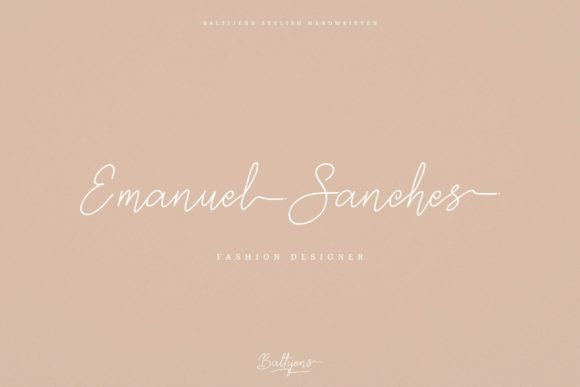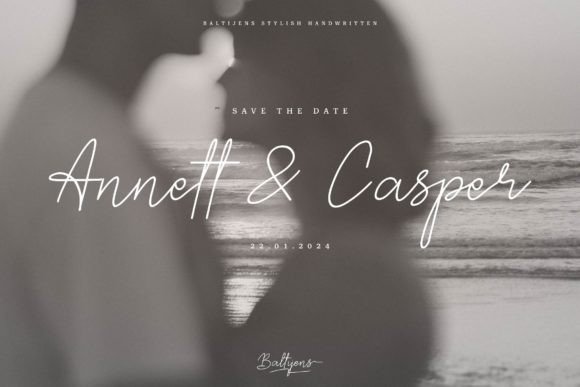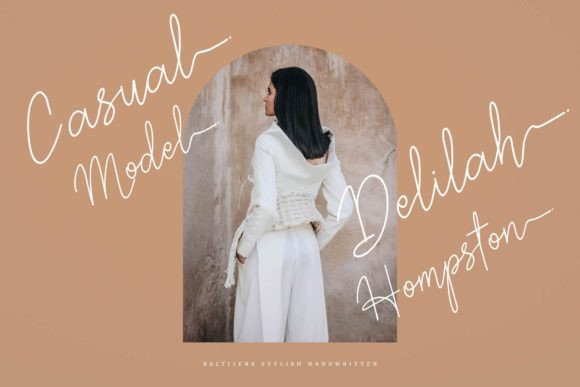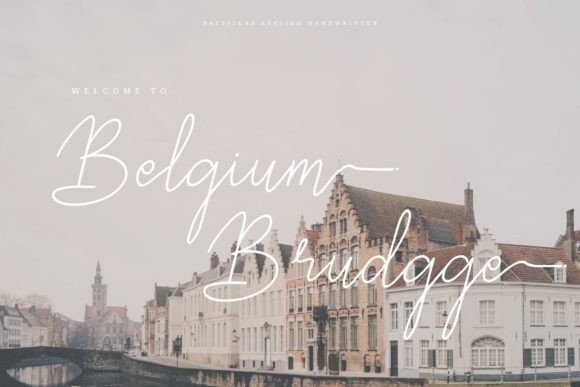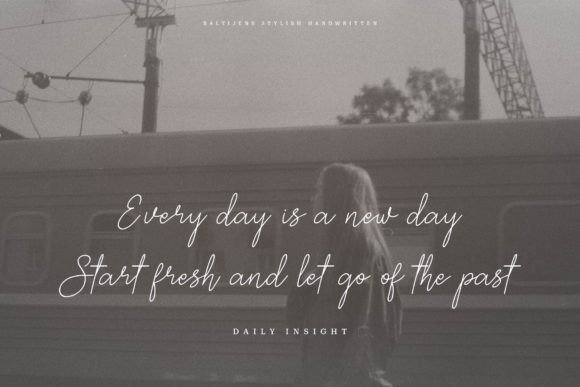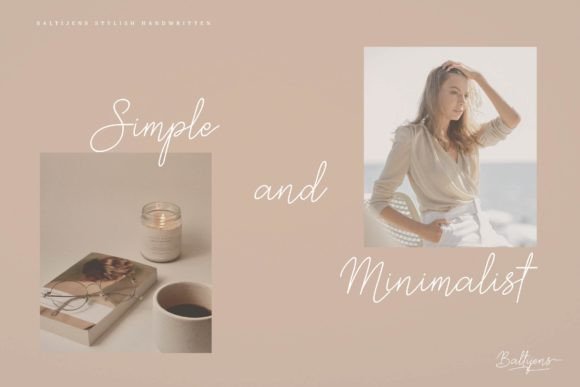
Baltijens Font: Elevate Your Designs with a Stylish Handwritten Touch
In the world of design, fonts play a crucial role in conveying the tone and personality of a project. If you’re looking for a stylish handwritten font to add a touch of elegance and sophistication to your designs, look no further than Baltijens Font. This beautiful font is perfect for a wide range of projects, from logos and branding to homeware designs, product packaging, and more.
What is Baltijens Font?
Baltijens Font is a stylish handwritten font that is designed to add a touch of class and sophistication to any project. Its elegant and flowing lines make it perfect for designs that require a personal and human touch. Whether you’re working on a logo, a poster, or a product label, Baltijens Font is sure to make your design stand out.
What Can I Use Baltijens Font For?
Baltijens Font is incredibly versatile and can be used for a wide range of projects, including:
- Logos and branding projects: Create a lasting impression with a custom logo that showcases your brand’s personality.
- Homeware designs: Add a touch of elegance to your home decor with custom designs that feature Baltijens Font.
- Product packaging: Make your products stand out on store shelves with eye-catching packaging that features Baltijens Font.
- Mugs, quotes, posters, shopping bags, t-shirts, and more: Baltijens Font is perfect for any project that requires a stylish and handwritten touch.
- Book covers: Create a stunning book cover that showcases the title and author in a beautiful, handwritten font.
- Name cards, invitation cards, greeting cards, and labels: Add a personal touch to your correspondence and stationery with Baltijens Font.
- Photography and watermark: Use Baltijens Font to add a touch of elegance to your photos and protect your work with a stylish watermark.
- Special events: Create custom designs for weddings, birthdays, and other special occasions with Baltijens Font.
Why Choose Baltijens Font?
There are many reasons why Baltijens Font is the perfect choice for your next design project. Here are just a few:
- Unique and stylish: Baltijens Font is a one-of-a-kind font that will add a touch of elegance and sophistication to any project.
- Handwritten touch: Baltijens Font has a beautiful, handwritten feel that will add a personal touch to your designs.
- Versatile: Baltijens Font can be used for a wide range of projects, from logos and branding to homeware designs and product packaging.
- Easy to read: Despite its elegant and flowing lines, Baltijens Font is easy to read and understand, making it perfect for designs that require a clear message.
Tips for Using Baltijens Font
Here are a few tips for getting the most out of Baltijens Font:
- Experiment with different sizes and colors: Baltijens Font looks great in a variety of sizes and colors, so don’t be afraid to experiment and find the perfect combination for your design.
- Use it sparingly: While Baltijens Font is beautiful, it can be overwhelming if used too much. Use it sparingly to add a touch of elegance to your design.
- Pair it with other fonts: Baltijens Font pairs well with a variety of other fonts, so don’t be afraid to experiment and find the perfect combination for your design.
In conclusion, Baltijens Font is a stylish handwritten font that is perfect for any project that requires a touch of elegance and sophistication. Its unique and flowing lines make it perfect for a wide range of designs, from logos and branding to homeware designs and product packaging. With its versatility, ease of use, and beautiful handwritten touch, Baltijens Font is sure to become a favorite among designers and crafters.